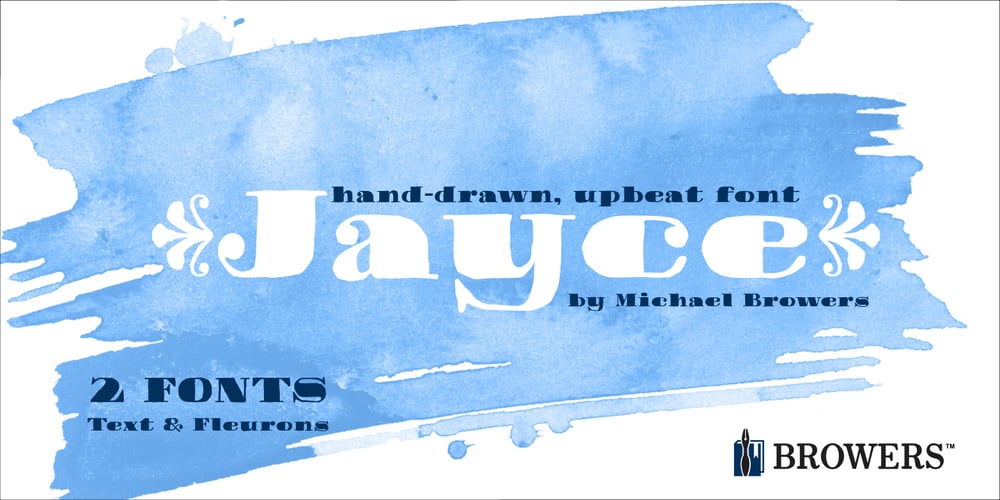
Jayce
Jayce font
Jayce Font Family was designed by Michael Jason Browers and published by Michael Browers. Jayce contains 2 styles and family package options. Jayce is a hand-drawn, upbeat display font family featuring two fonts: a text face and a set of fleurons.